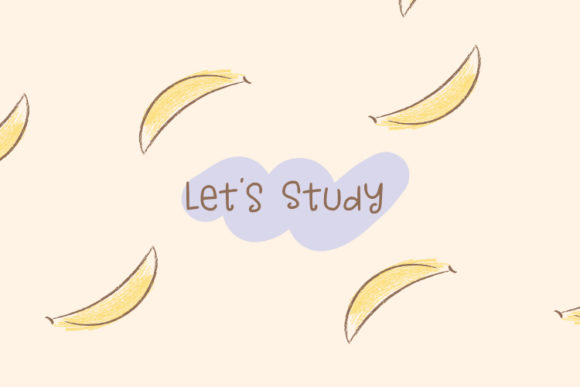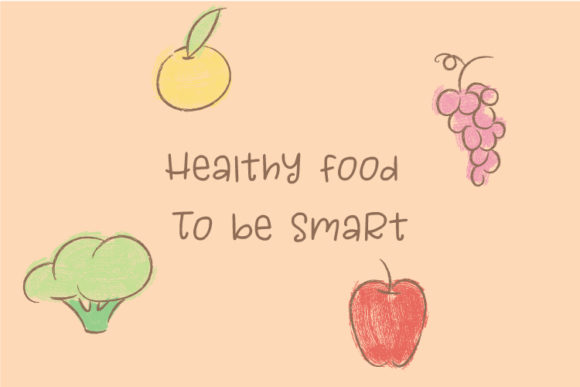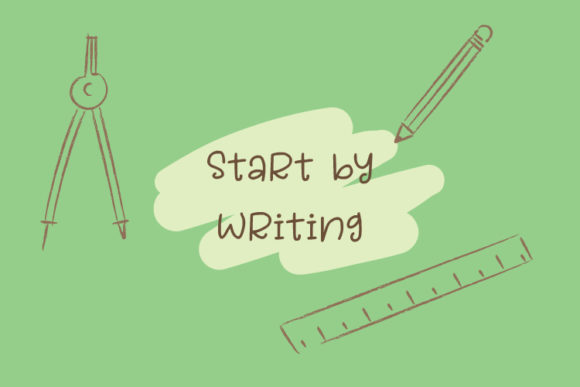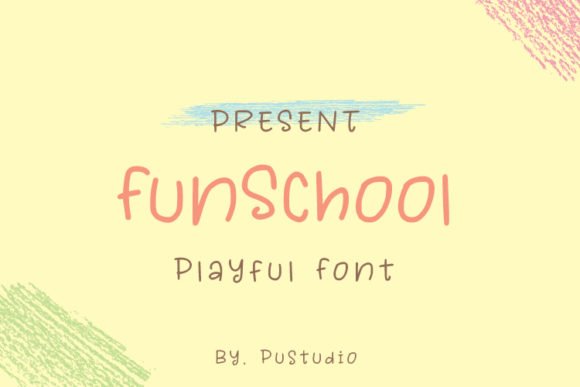
Introduction to Fun School Font
Fun School is a fresh and playful handwritten font.
It is perfect for poster designs, book covers, merchandise, fashion campaigns, newsletters, greeting cards, album covers and so much more .
Key Features of Fun School Font